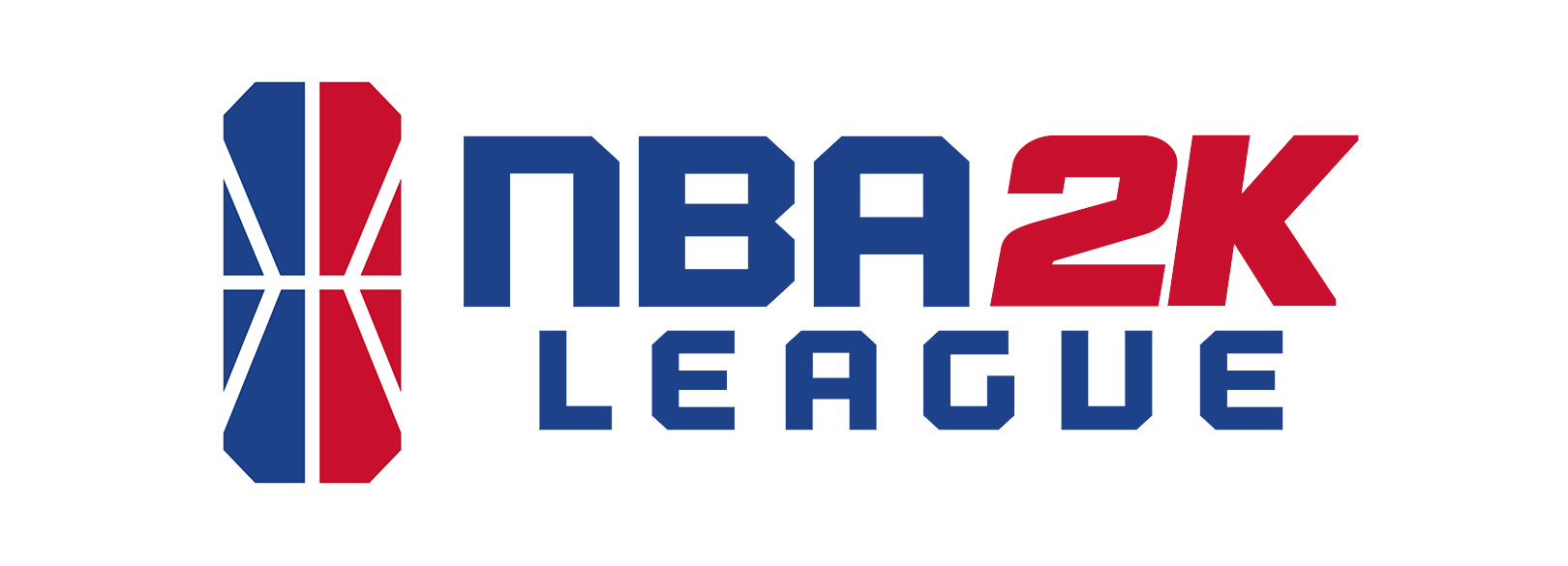
Nba 2K Logo Font
Nba 2K Logo Font. Nba 2k logo community basketball designs, themes, templates and downloadable graphic elements on dribbble. Mon oct 28, 2013 10:30 am.
NBA 2K16 Logo Font
NBA 2K16 Logo Font from fontmeme.com
Can any of you tell me what is the font of the nba part of the nba2k14 logo? Generate cool and amazing fonts by using nba font generator. Nba 2k logo community basketball designs, themes, templates and downloadable graphic elements on dribbble.
I’m sure it’s custom but it reminds me a bit of din black. Not sure what the font is but you can get the text nba2k1x in high res. It would be very much appreciated.
Absent is a human silhouette, which speaks to the inclusive nature of the league and the. Download fonts from the nba family. Download nba 2k16 logo font.
You could take that font and recreate the 2k21 logo with some slight adjustments in illustrator or sketch Generate cool and amazing fonts by using nba font generator. However, the famous human silhouette of jerry west is missing from the new logo, which the nba claims “speaks to the inclusive nature of the league and the opportunity for any.
I'm having a hard time finding the font for both limited edition and 2k20. We have 100 free nba 2k vector logos, logo templates and icons. The nba 2k league logo incorporates the colors and shape of the nba logo and the font of the nba 2k logo.